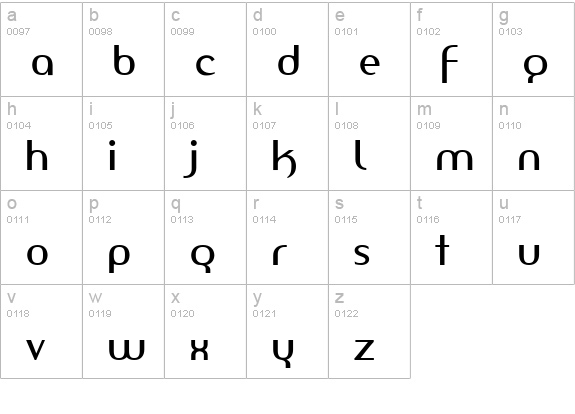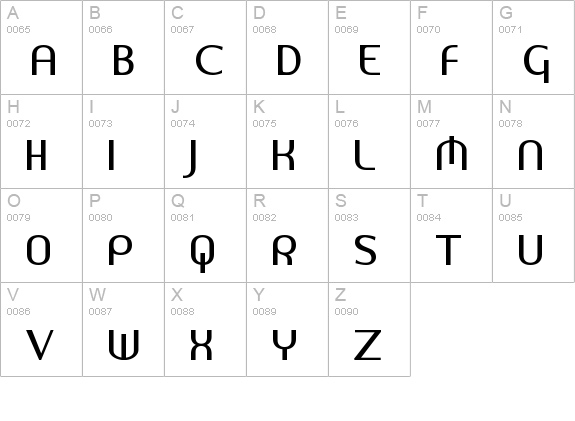
Amerika Sans Font Details
Amerika Sans is a modern and versatile typeface that exudes elegance and sophistication. With its clean lines and contemporary design, Amerika Sans is perfect for a wide range of design projects, from branding to editorial layouts. This sleek and stylish font is ideal for creating striking headlines, eye-catching signage, and sleek logos. Its versatility makes it suitable for both digital and print applications, ensuring that your message will always stand out. And the best part? Amerika Sans is available for free download at FontsMarket.com. So whether you're a designer looking to add a fresh new font to your collection or a business owner in need of a professional typeface for your branding, Amerika Sans has got you covered. Download it today and elevate your designs with this elegant and modern font.